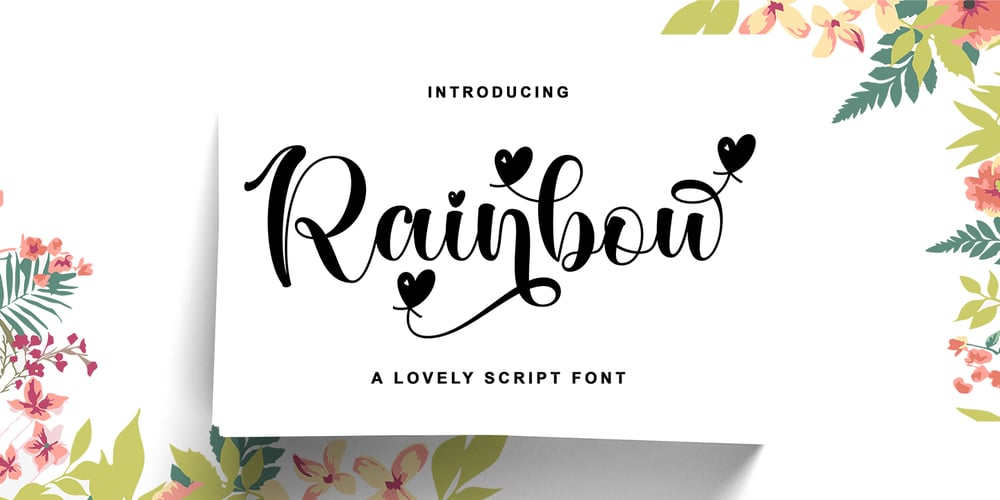
Rainbow
Rainbow font
Rainbow Font Family was designed by Nurul Kamal and published by Nk Studio. Rainbow contains 1 styles and family package options. Rainbow is a soft and sweet script typeface, with the characters dancing along its baseline. It has a casual and elegant touch. Can be used for various purposes such as logos, wedding invitations, headers, t-shirts, letterheads, signboards, labels, news, posters, badges etc.OpenType features with alternate styles, ligatures and multi-language support.To activate the OpenType Stylistic alternative, you need a program that supports OpenType features such as Adobe Illustrator CS, Adobe Indesign & CorelDraw X6-X7, Microsoft Word 2010 or a later version.How to access all alternative characters, using the Windows Character Map with Photoshop:https://www.youtube.com/watch?v=Go9vacoYmBwHow to access all alternative characters using Adobe Illustrator:http://youtu.be/iptSFA7feQ0There are additional ways to swap / swap, using Character Map (Windows), Nexus Fonts (Windows), Font Book (Mac) or a software program such as PopChar (for Windows and Mac).Need help? If you need help or advice, please contact me via email.Thank you!